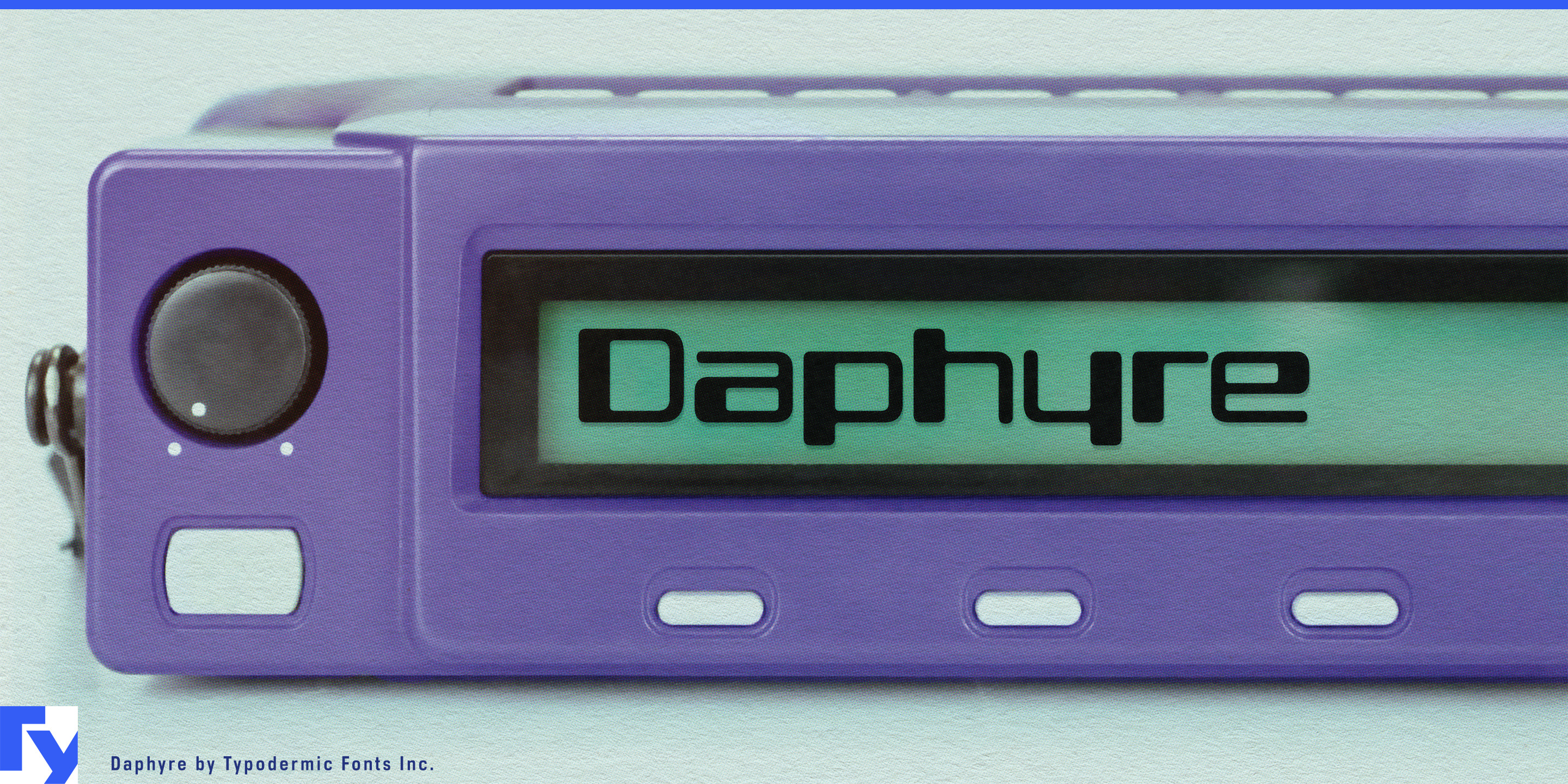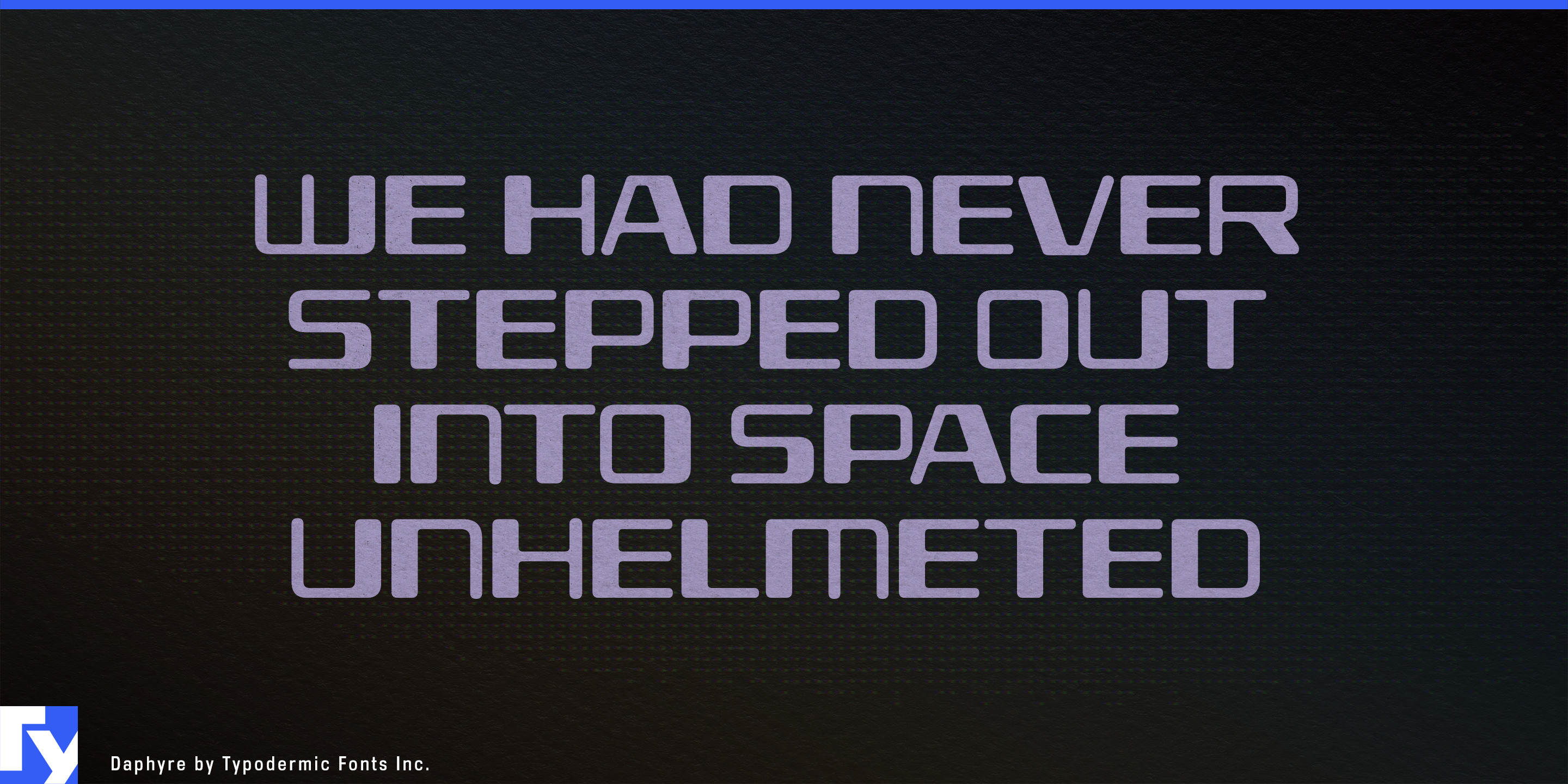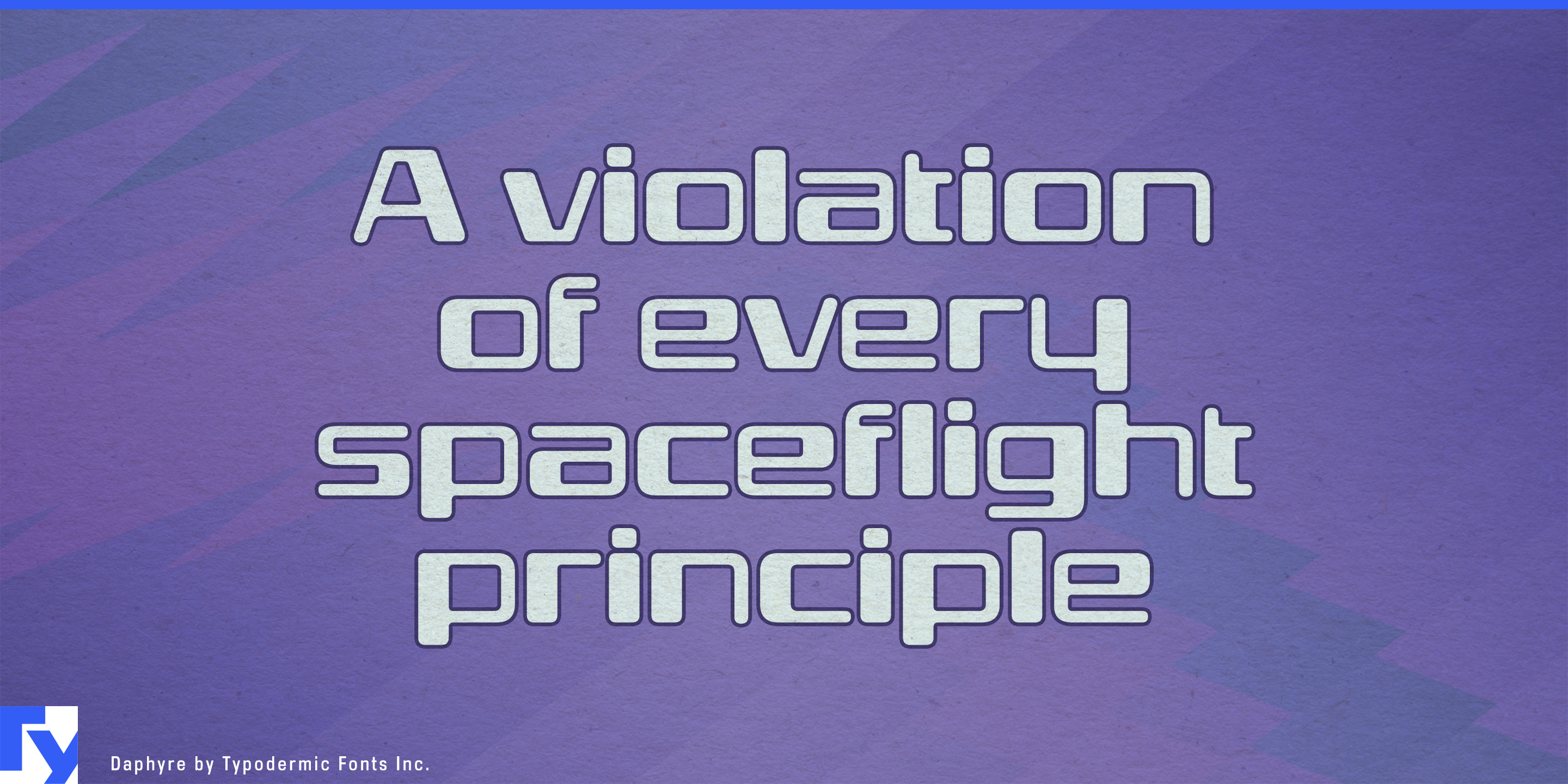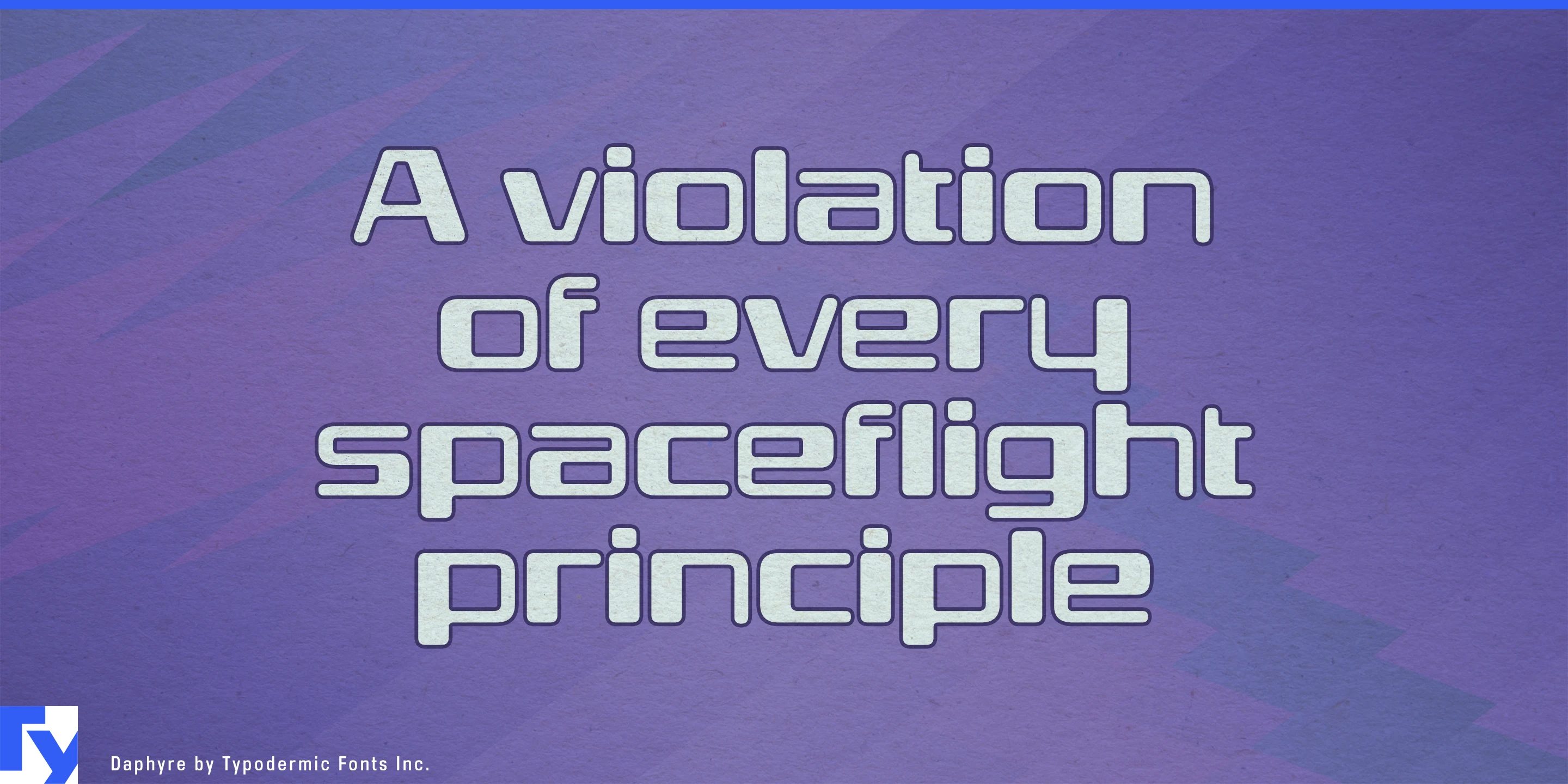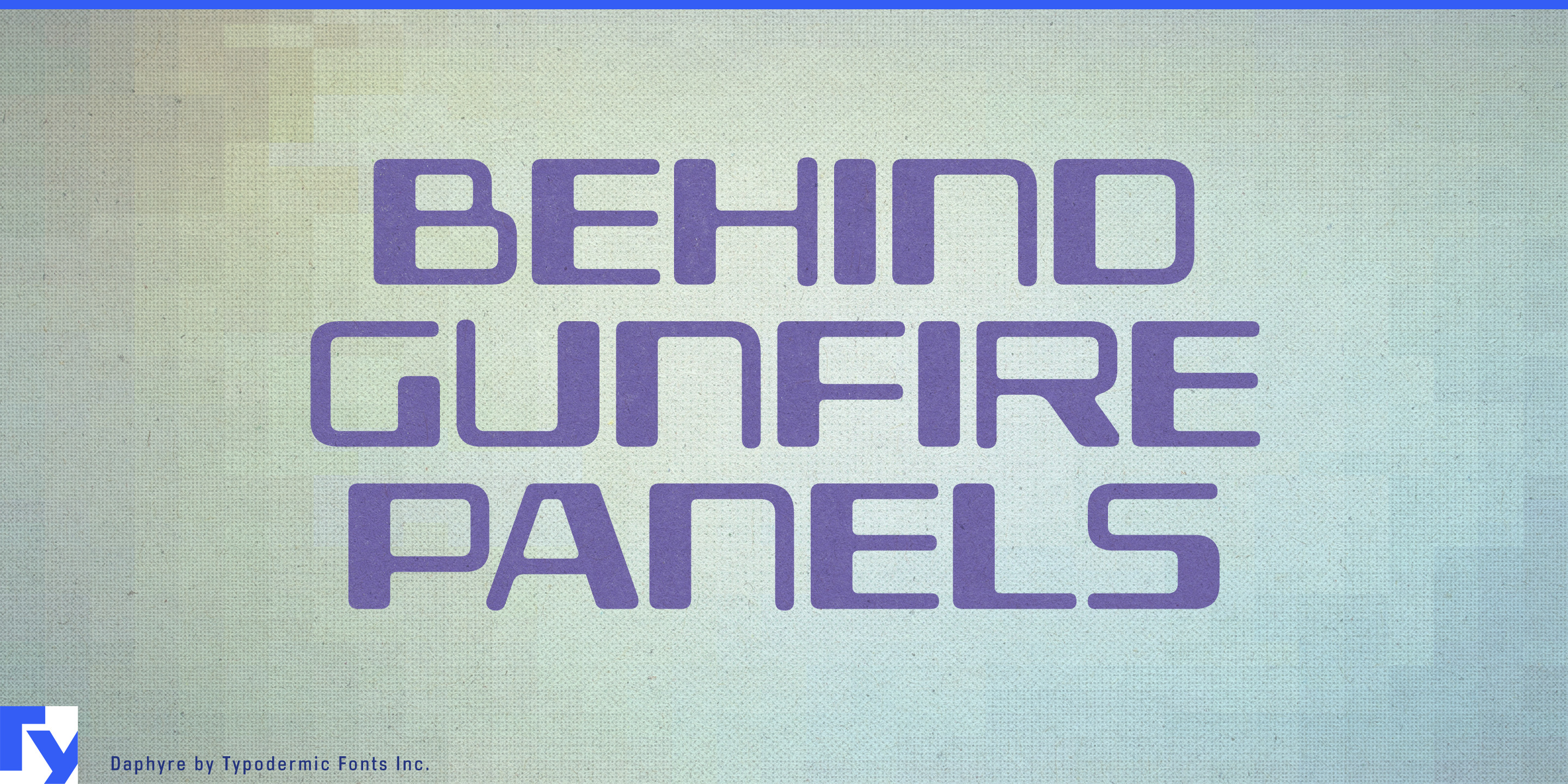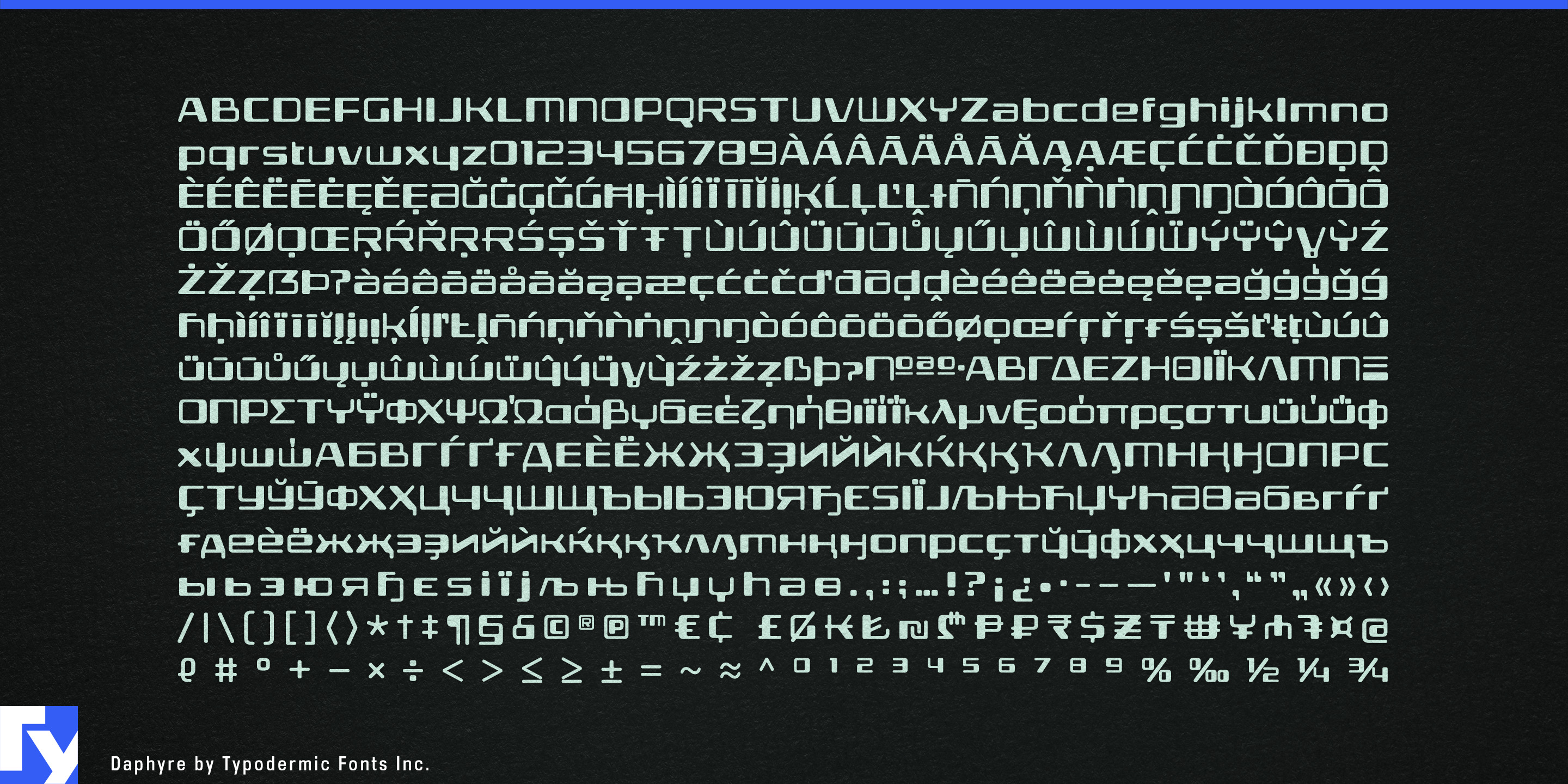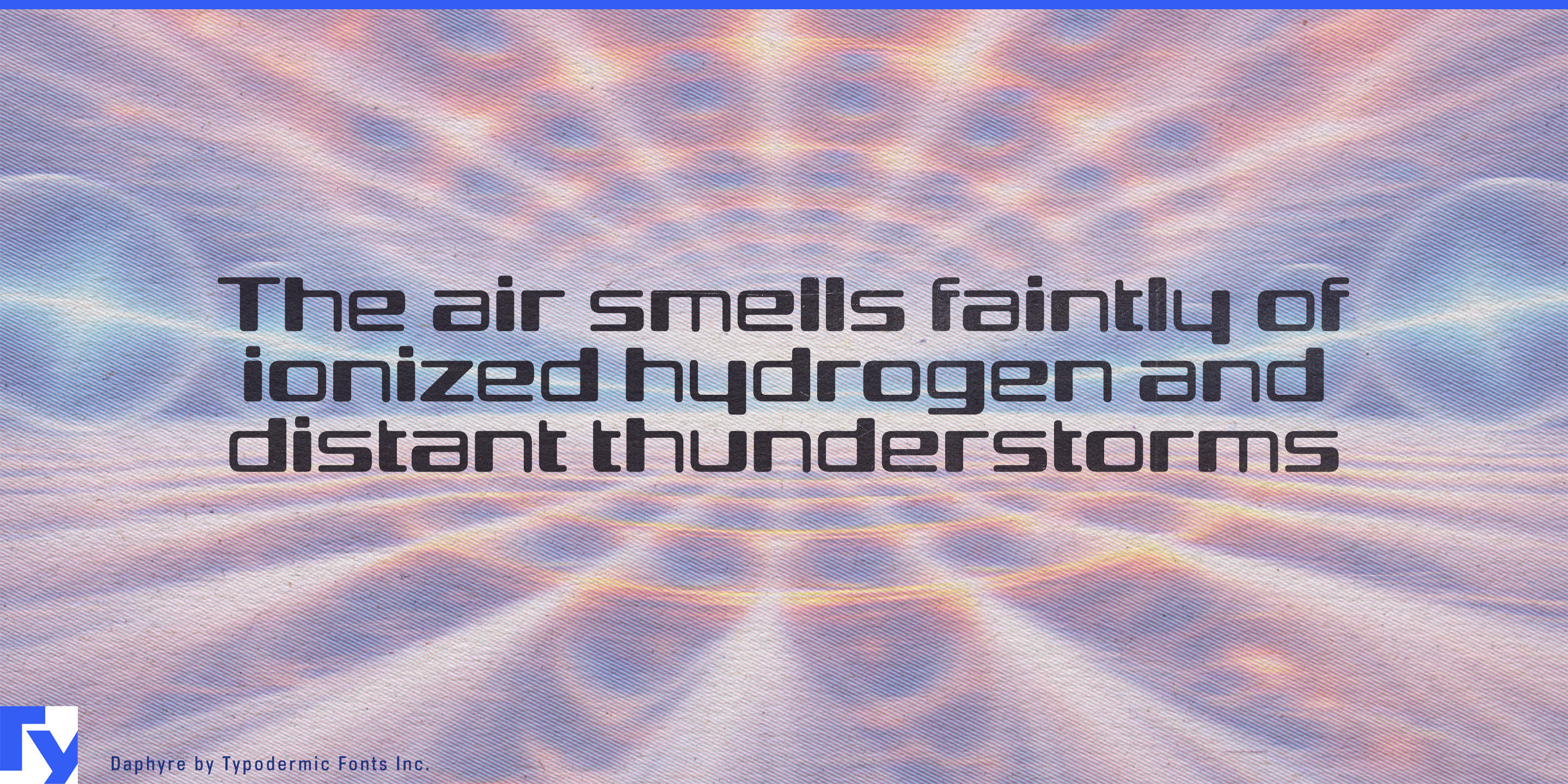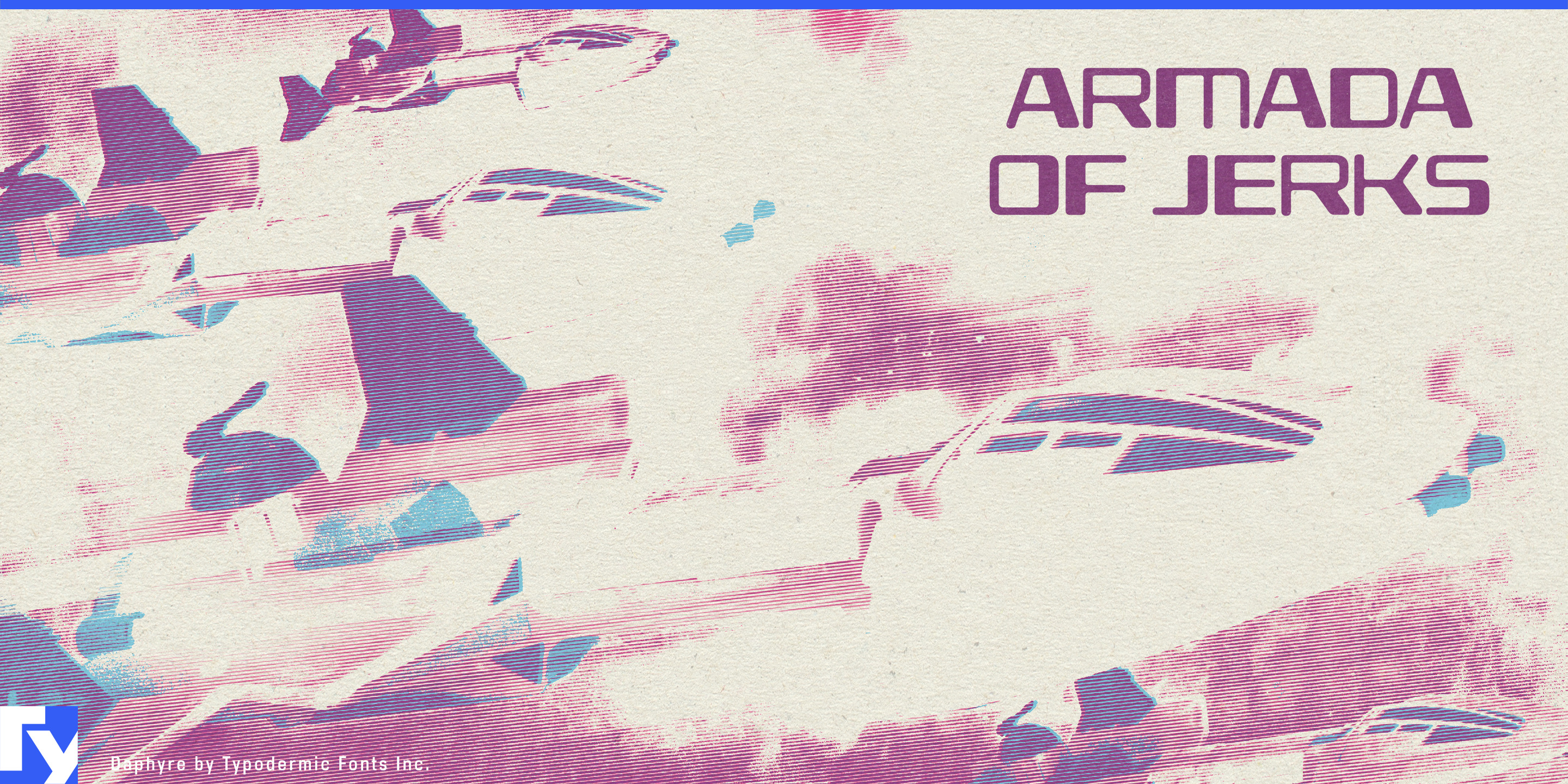
Daphyre
Machine-readable lettering has a peculiar visual authority. Daphyre borrows some of the simplified geometry associated with MICR characters, then loosens it into broad, open display forms. The result suggests scanning, processing and verification without looking like literal cheque typography.
That makes Daphyre especially useful for systems that sit between people and machines. Contactless payment cards, transit passes, prepaid fare systems and ticket wallets can use it for card-program names, service identities and large labels, while a more conventional sans handles account details and instructions.
Credentials offer a similar role. Hotel keycards, employee access cards, visitor passes, convention badges and event credentials all contain information intended to be checked or authenticated. Daphyre can handle the organization name, access level or pass title, adding a technical flavour without implying that the lettering itself is machine-readable.
Parcel lockers, courier services, baggage systems and automated pickup stations extend the idea from verification to routing. Surrounded by barcodes, QR codes and tracking numbers, Daphyre works well for the human-facing layer: service names, locker graphics and station headings. Warranty cards, authenticity certificates, inspection labels and numbered inserts can use the same visual language when a product needs to feel registered or verified.
Ticket machines, check-in kiosks, access-control stations and payment terminals tie these applications together. Daphyre is strongest at the identity and display level; system names, service names and large headings rather than dense interface text. Its simplified MICR flavour turns the visual language of machine recognition into a display face for contemporary payment, access, logistics and verification systems.